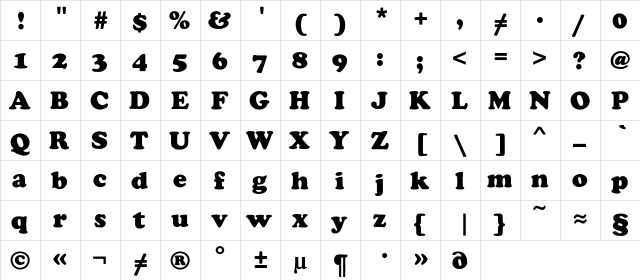
KladezC Regular
Design Context for KladezC Typeface
KladezC offers clean, dependable letterforms without strong stylistic allegiance, making it a practical choice for designers who need flexibility.
Pro Tip: Use KladezC in both headline and body roles to test its range before committing to a single application.